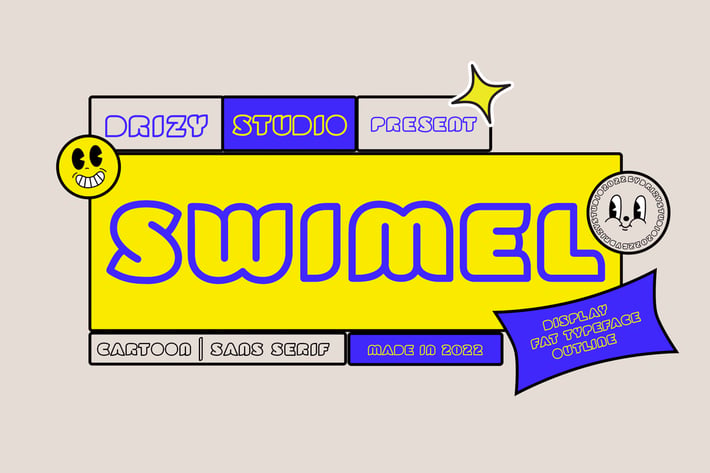
Swimel - Fun Font
Introducing Swimel! a san serif fat fun font from Drizy! It's suitable for cartoon and other funny theme of your project.
Swimel Features:
Numeral & Punctuations
Multilinguals & Ligatures